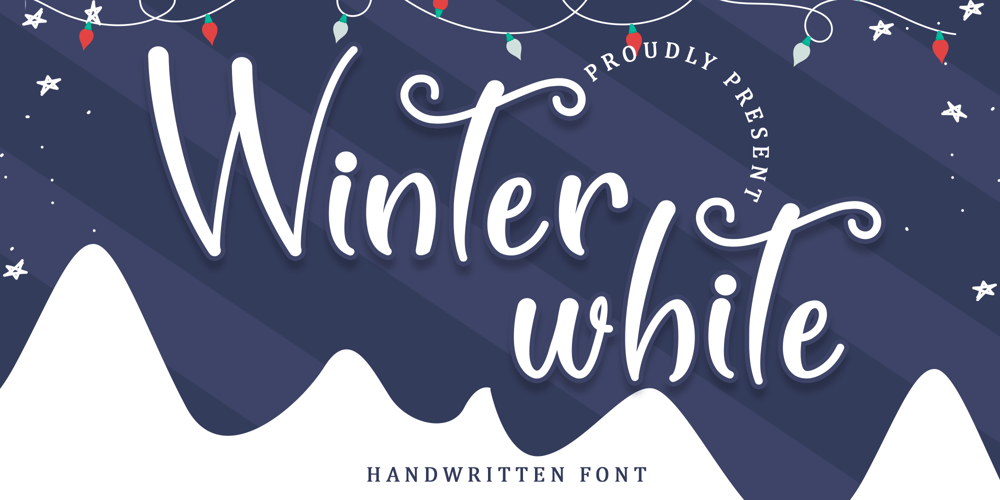
Winter White Font Family was designed by Alif Ryan Zulfikar and published by Sakha Design. Winter White contains 2 styles and family package options. Winter White is a stylish and incredibly elegant script font. It looks stunning on wedding invitations, thank you cards, quotes, greeting cards, logos, business cards and every other design which needs a handwritten touch.